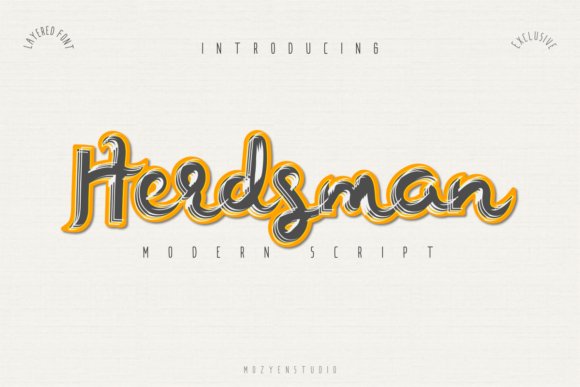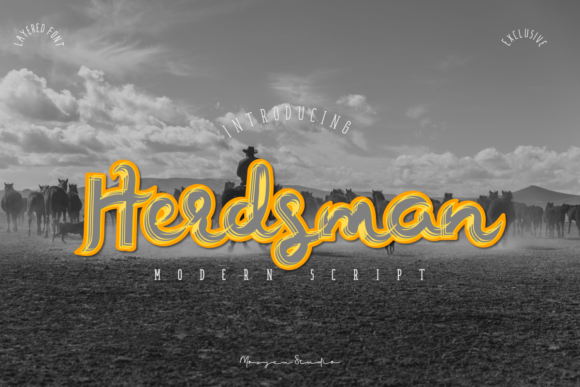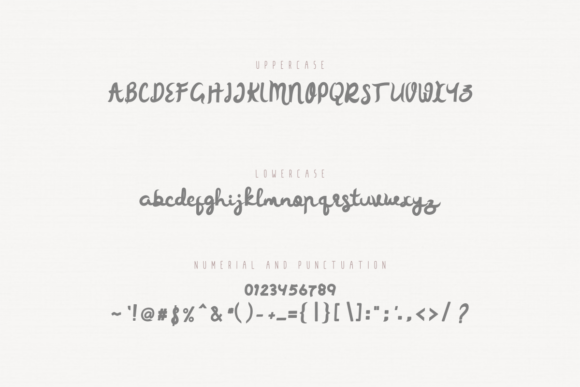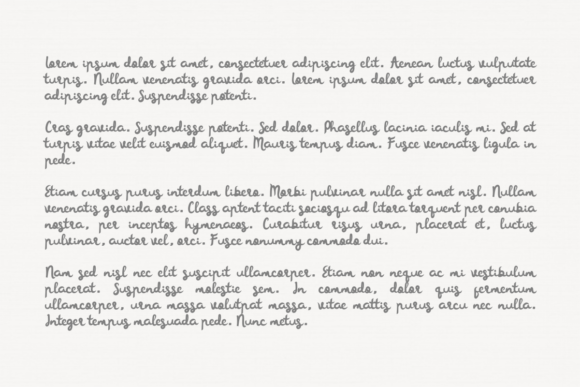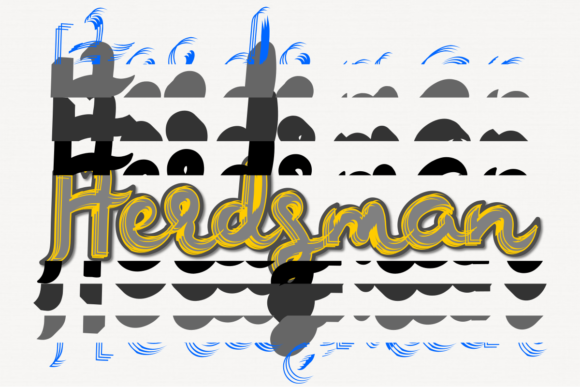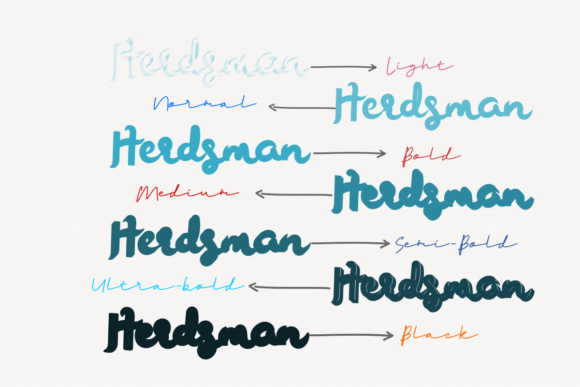
Discover the Magic of Herdsman Font
As designers, we’ve all been there – staring at a blank canvas, trying to bring our vision to life. The cursor blinks, and our minds go blank. But what if I told you that there’s a font that can spark creativity and make your designs truly extraordinary? Enter Herdsman Font, a modern script font that’s about to become your new best friend.
Herdsman Font is perfect for logos, branding, and social media posts. Its elegant and playful style will add a touch of sophistication to any design. Whether you’re a seasoned pro or a budding designer, Herdsman Font is a valuable addition to your toolkit. With its versatility and charm, it’s no wonder that designers are flocking to Herdsman Font to elevate their designs and make a lasting impression.
Herdsman Font Key Features
- Font Family: Herdsman is a unique, hand-drawn font designed for use in various creative projects.
- Character Count: The font contains a wide range of characters, including uppercase and lowercase letters, numbers, and punctuation marks.
- Unique Characteristics: Herdsman features a distinctive, hand-drawn style with varying line widths and organic shapes, making it ideal for adding a touch of personality to designs.
Designer Review: Herdsman Font
I recently had the chance to work with the Herdsman font, and I must say it’s a unique and interesting typeface. Here’s my honest review:
- ✨ The Herdsman font has a very distinct and rugged feel to it, perfect for outdoor or nature-themed projects.
- ✨ The font is highly legible, even at smaller font sizes, making it suitable for body text or titles.
- ✨ The font family is quite extensive, with multiple weights and styles available, offering a lot of flexibility for designers.
- ⚠️ The font may not be the best choice for projects that require a more formal or professional tone, as its rugged feel may come across as too casual.
- ⚠️ Some of the font’s characters may not be as polished as others, which could be a concern for designers who value perfection.
Overall, I think the Herdsman font is a great addition to any designer’s toolkit. While it may not be the best choice for every project, it’s definitely worth considering for those that require a unique and rugged feel. With its extensive font family and high legibility, I think it’s a great option for designers who want to add some character to their work.
For a rustic, vintage feel, pair Herdsman with distressed textures and earthy colors.
For a unique look, experiment with combining Herdsman with other fonts and layering effects.
For a professional look, pair Herdsman with a clean and simple design.
Herdsman is perfect for:
- Rustic-themed designs
- Outdoor-inspired graphics
- Distressed or vintage-style text
Remember to experiment with different font sizes, colors, and layering effects to get the most out of the Herdsman font.
Alternatives to Herdsman Font
Playfair Display is a luxurious and elegant serif font, perfect for titles and headings. It features intricate details and flourishes, making it ideal for high-end designs, such as luxury brands and fashion magazines. Compared to Herdsman Font, Playfair Display is more ornate and sophisticated, with a more classical feel.
Great Vibes is a modern and stylish script font, great for adding a touch of personality to your designs. It’s perfect for titles, quotes, and other short texts where you want to convey a sense of creativity and flair. Compared to Herdsman Font, Great Vibes is more fluid and dynamic, with a more playful feel.
Carolyna Pro is a elegant and refined serif font, suitable for a wide range of designs, from corporate to fashion. It features a clean and modern look, making it perfect for body text and smaller headings. Compared to Herdsman Font, Carolyna Pro is more streamlined and minimalist, with a more contemporary feel.